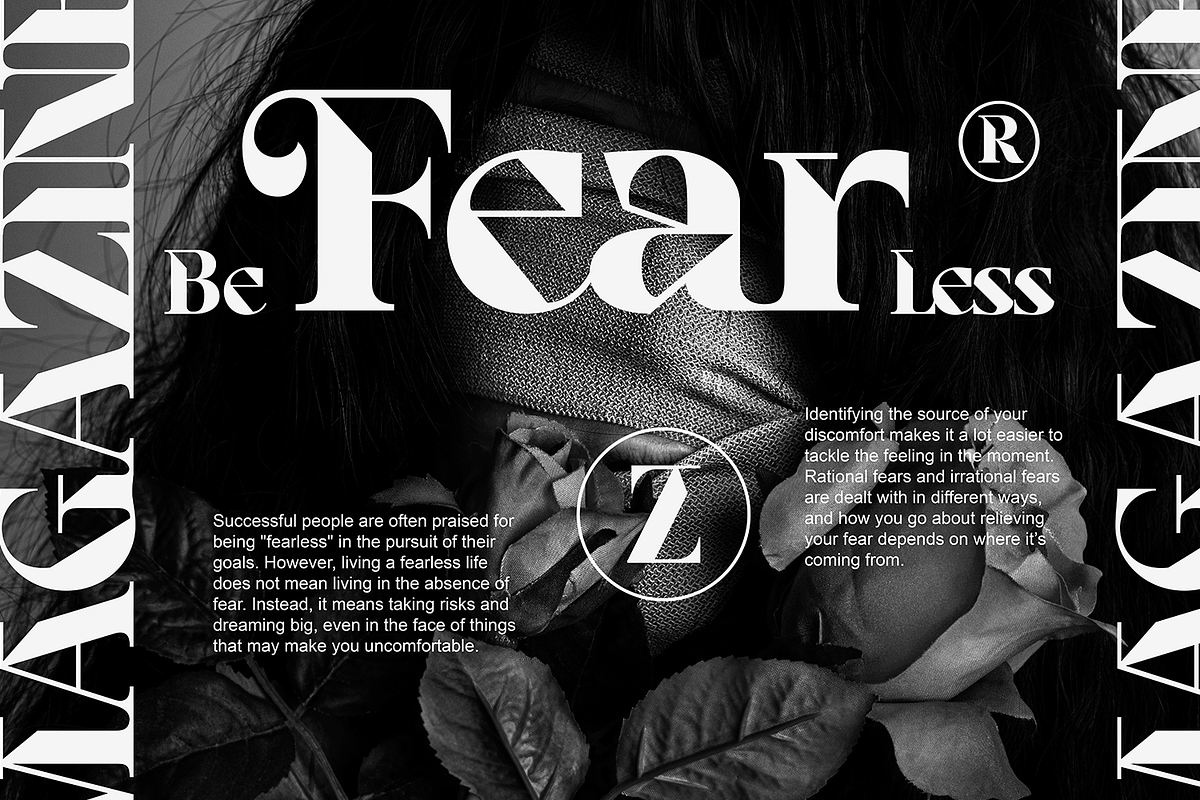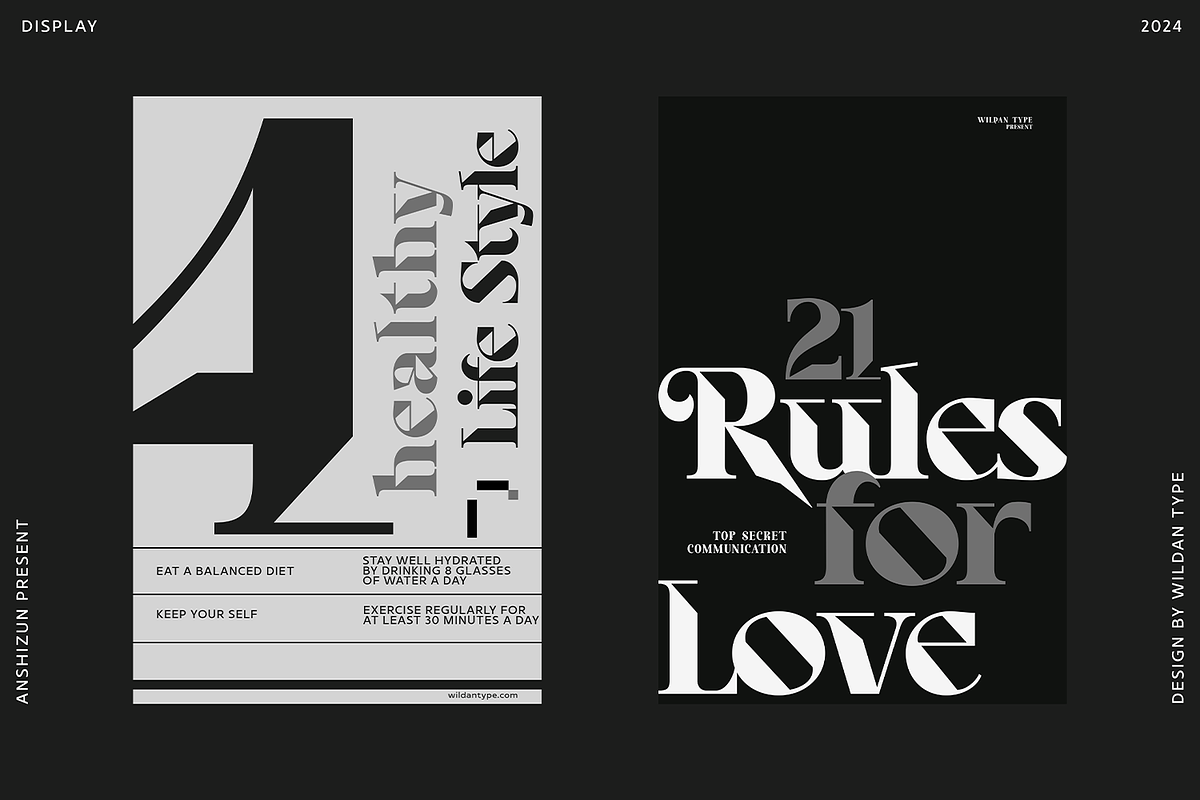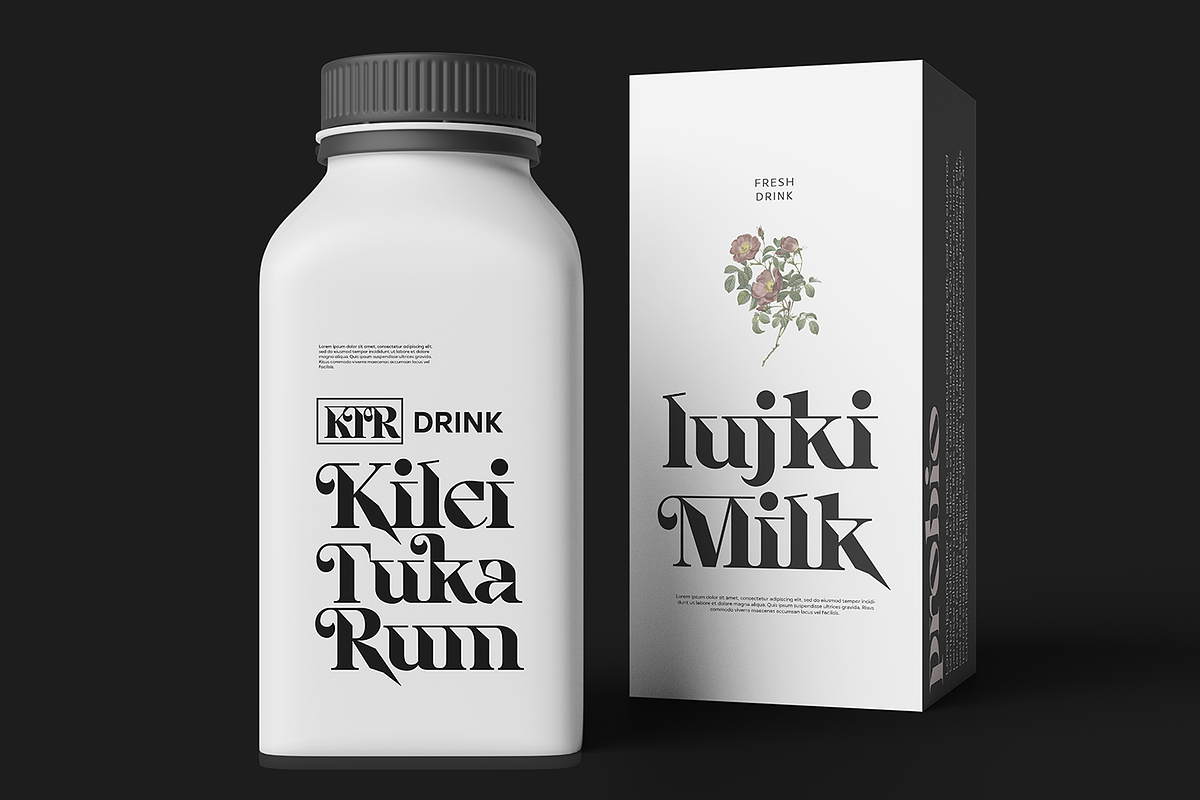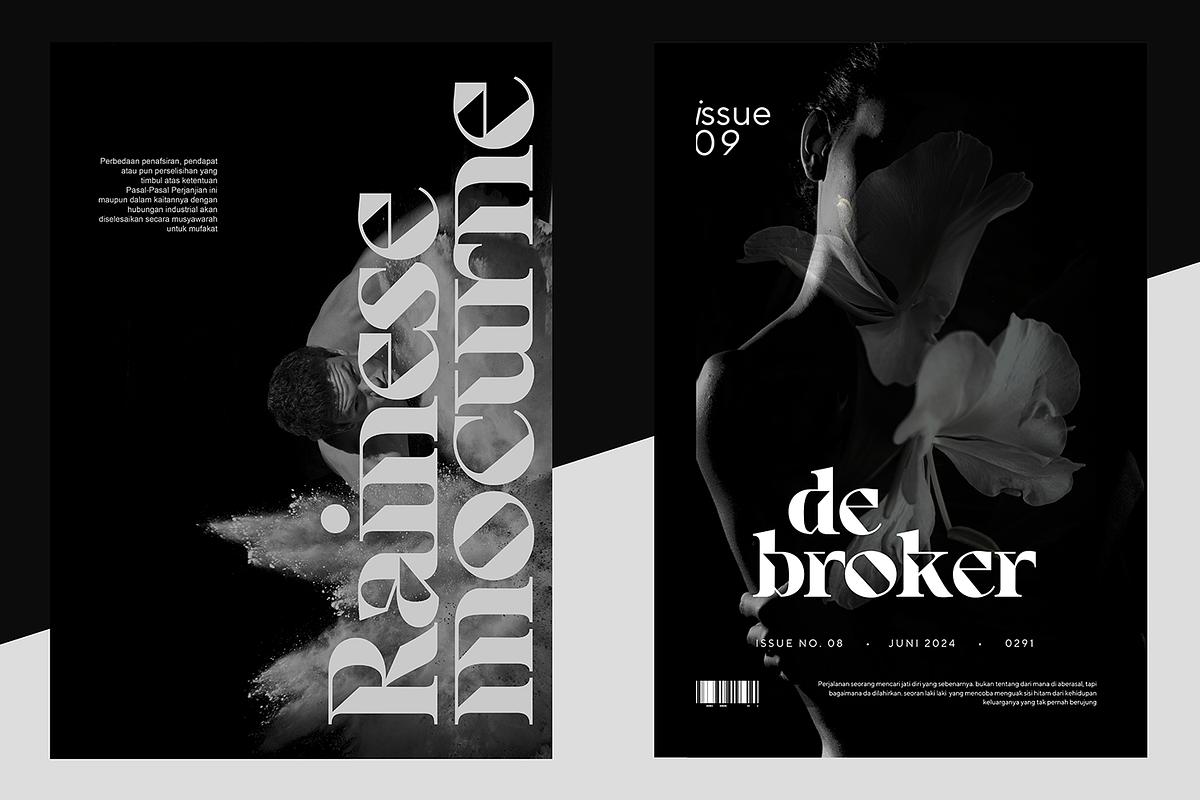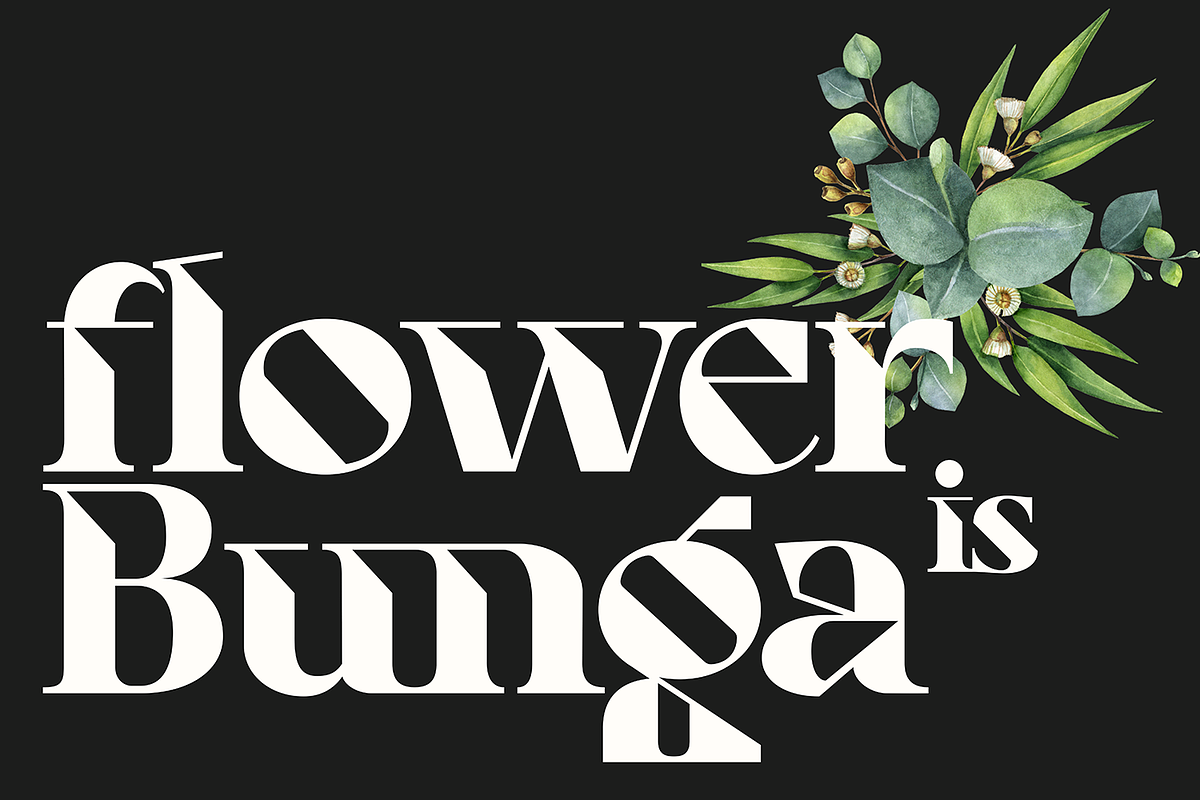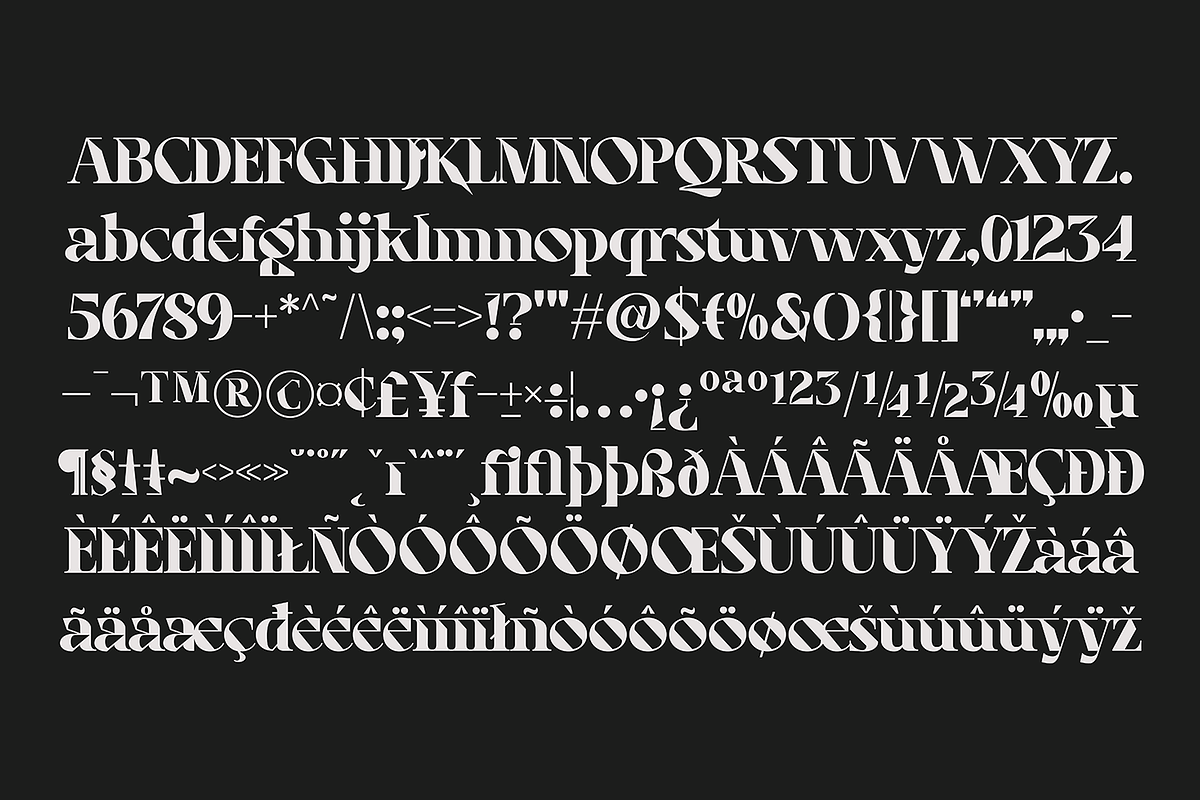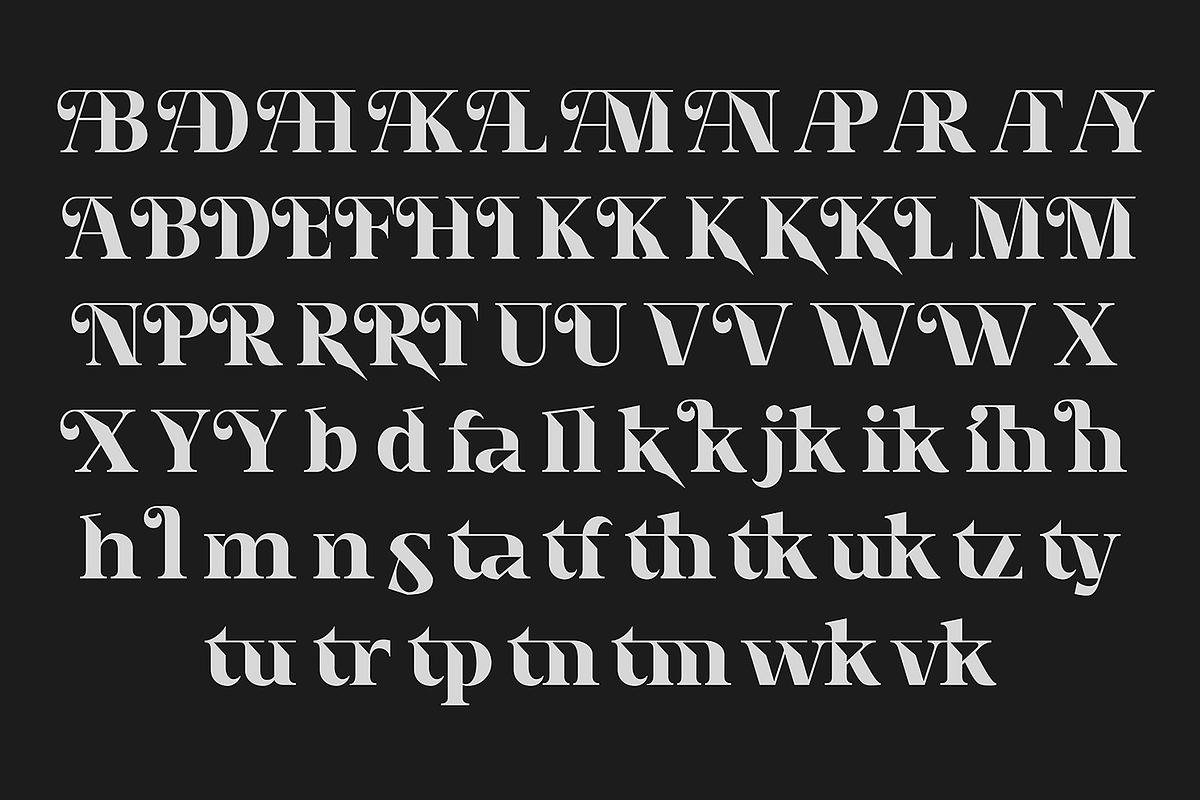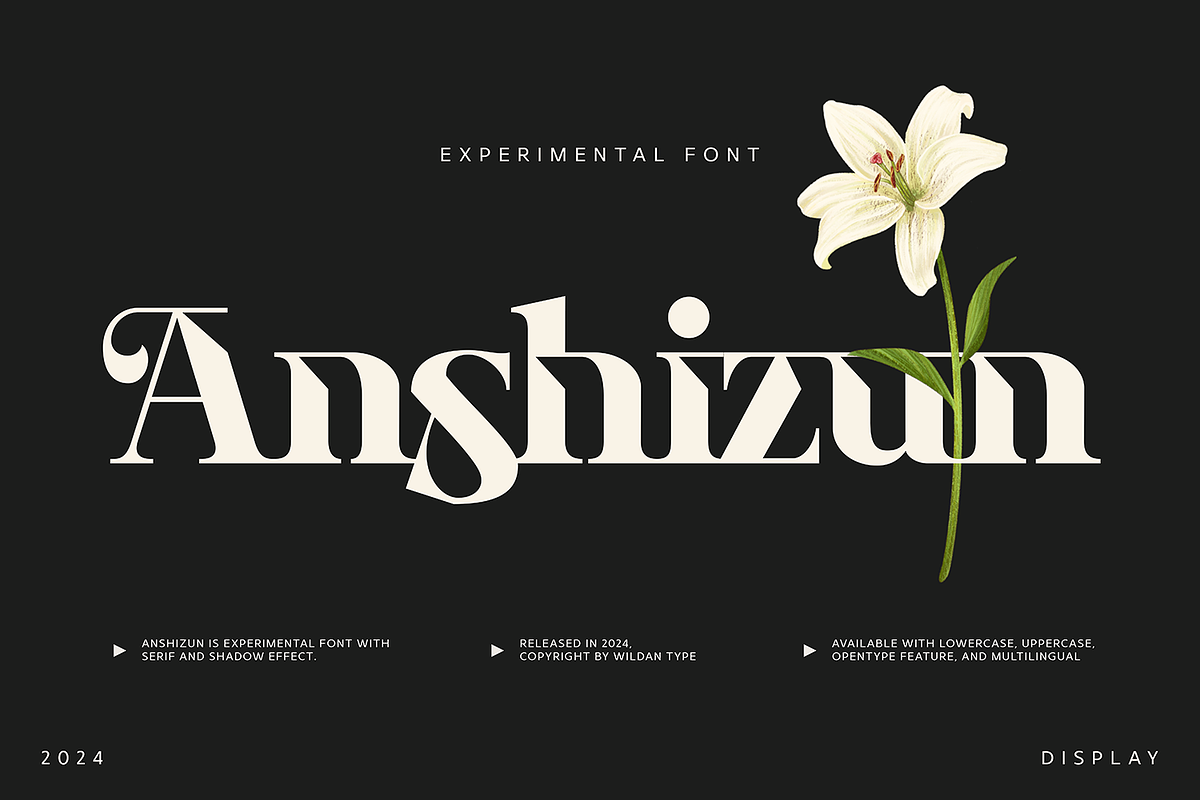
Anshizun
The font "Anshizun" is an experimental display typeface characterized by its unique blend of traditional serif structures and modern, avant-garde aesthetics. This font exhibits high contrast between thick and thin strokes, along with angular cuts that give it a sharp, dynamic appearance.
The font can be used effectively in magazines, brochures, and other editorial layouts where a strong visual impact is desired.Its bold and decorative nature makes it perfect for posters, advertisements, and any promotional materials that need to grab attention.